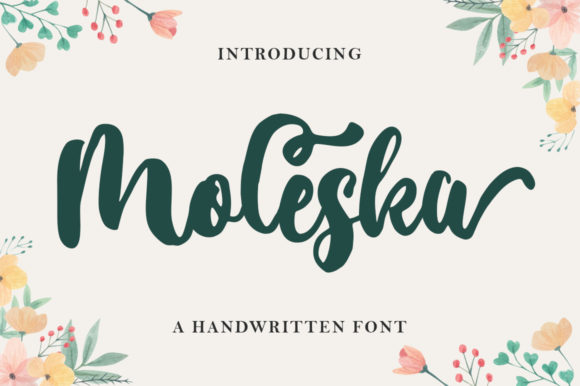
Enter the realm of Moleska, where elegance meets charm in a symphony of script artistry. Inspired by the allure of handwritten allure, Moleska dances across your screen, capturing hearts with its playful spirit and mesmerizing swashes. Its ligatures, like graceful dancers, intertwine with fluidity, adding a touch of enchantment to every letter. With Moleska, creativity knows no bounds.
Unleash your inner artist and transform any design into a captivating masterpiece. Whether you're crafting elegant wedding invitations, adding a whimsical touch to your digital scrapbook, or personalizing handmade greeting cards, Moleska becomes your trusted companion. Its versatility is truly remarkable, seamlessly adapting to various projects.
Picture your wedding album adorned with Moleska's exquisite script, each page a testament to the love and joy of your special day. The flowing lines and sweeping strokes mimic the strokes of a skilled calligrapher, evoking a timeless and romantic aura. Prepare to be mesmerized as Moleska transforms your cherished memories into a visual feast.
Embrace the magic of Moleska and let your creativity soar. It's more than just a font; it's a gateway to a world where artistic expression knows no limits. Experience the joy of creating designs that captivate, inspire, and leave an indelible mark. Step into the realm of Moleska and unlock your creative potential today!